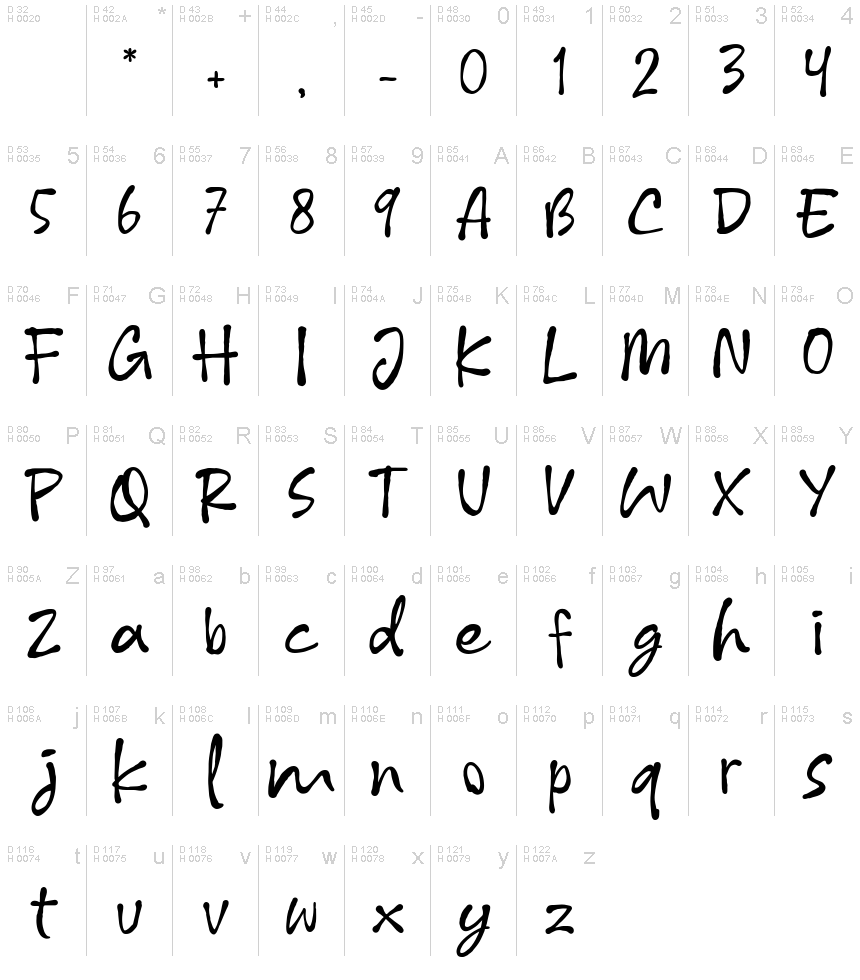
Self Written is a captivating handwritten font that exudes a genuine, personal touch. Its organic flow and natural irregularities create a warm, inviting aesthetic, evoking a sense of handcrafted charm. The varied line weights and subtly tapered strokes give the font a distinct personality, making it well-suited for a wide range of applications, from branding and packaging to editorial design and stationery.
Whether you're seeking to add a touch of authenticity to your projects or create a more personalized, heartfelt impression, Self Written's versatile and visually engaging style makes it a compelling choice.